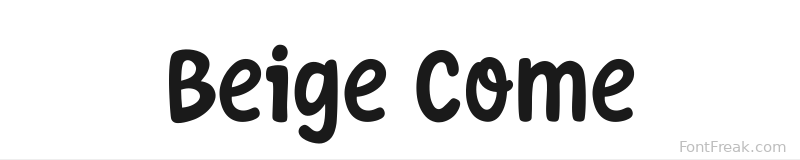
Beige Come
Beige Come — Character Map
About Beige Come
The Beige Come font by Syaf Rizal is a delightful display typeface that captures attention with its playful character. This font is characterized by its rounded, soft edges and a slightly irregular baseline, giving it a warm and inviting appearance. The stroke weight is moderately thick, which ensures strong visibility while maintaining a friendly and casual vibe. The spacing between letters is generous, enhancing readability and making it suitable for various creative applications. Decorative elements are minimal, focusing instead on the font's organic shape to convey a sense of approachability.
This versatile font is ideal for a range of uses, including wedding invitations where its charming style can evoke a sense of celebration and love. It also works beautifully for restaurant menus, adding a personal touch that can make the dining experience feel more intimate. Additionally, the Beige Come font is perfect for social media graphics, where its eye-catching nature can help content stand out in crowded feeds. Graphic designers and content creators will appreciate its unique flair for projects that require a touch of creativity and warmth.
What sets the Beige Come font apart is its ability to blend charm and versatility seamlessly. Whether used in digital or print formats, it brings a friendly and contemporary feel that can enhance the visual identity of any project. This makes it an excellent choice for anyone seeking to make a memorable impression through typography.
Author Syaf Rizal